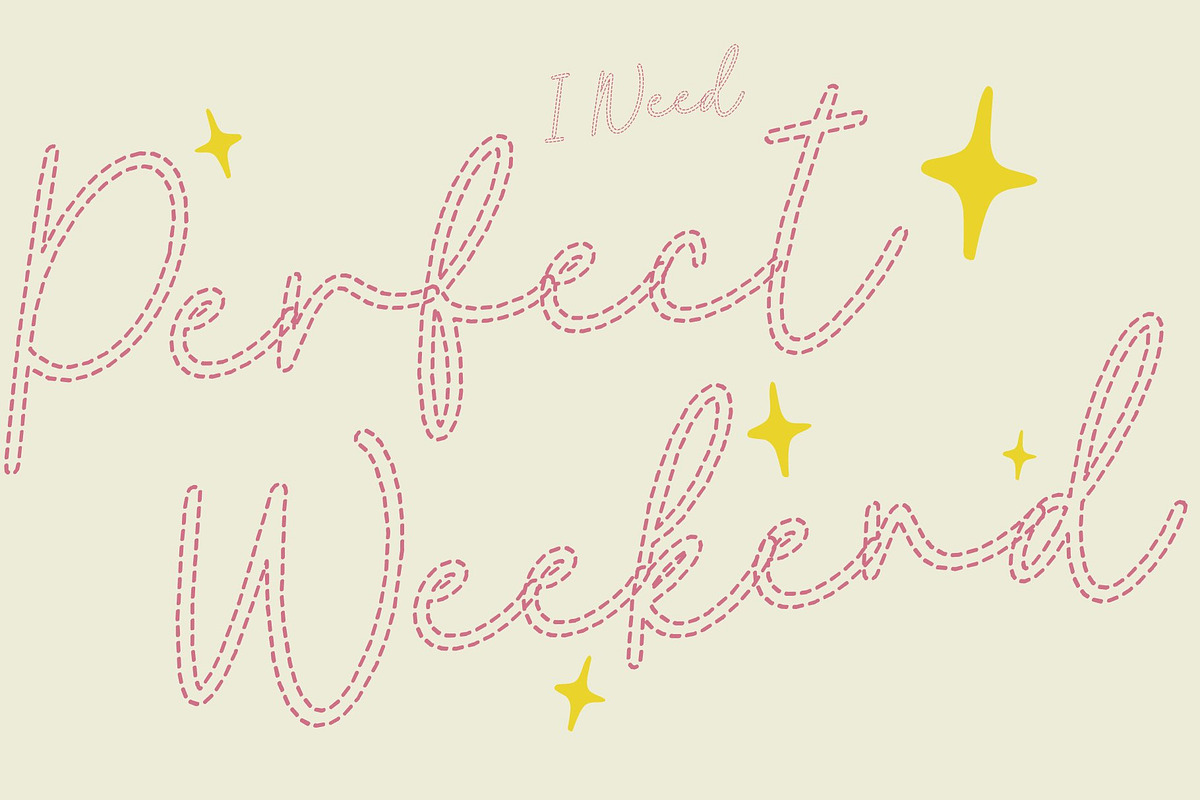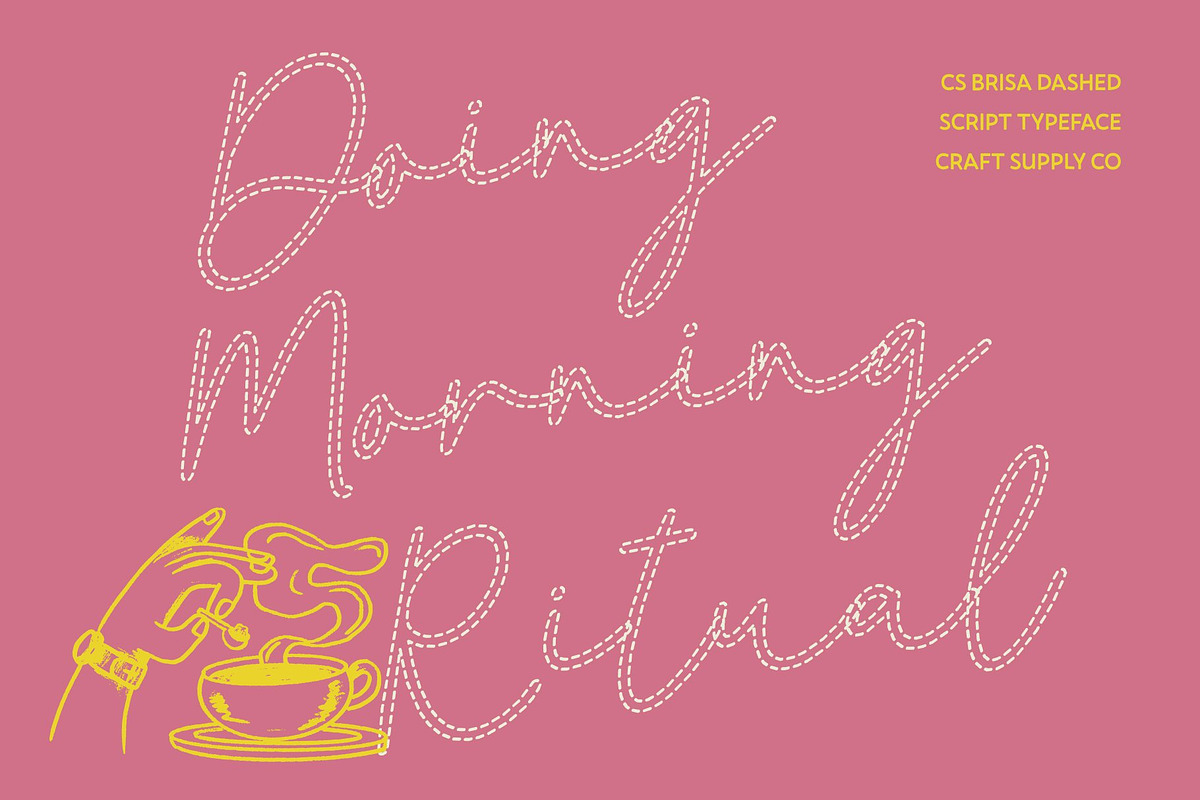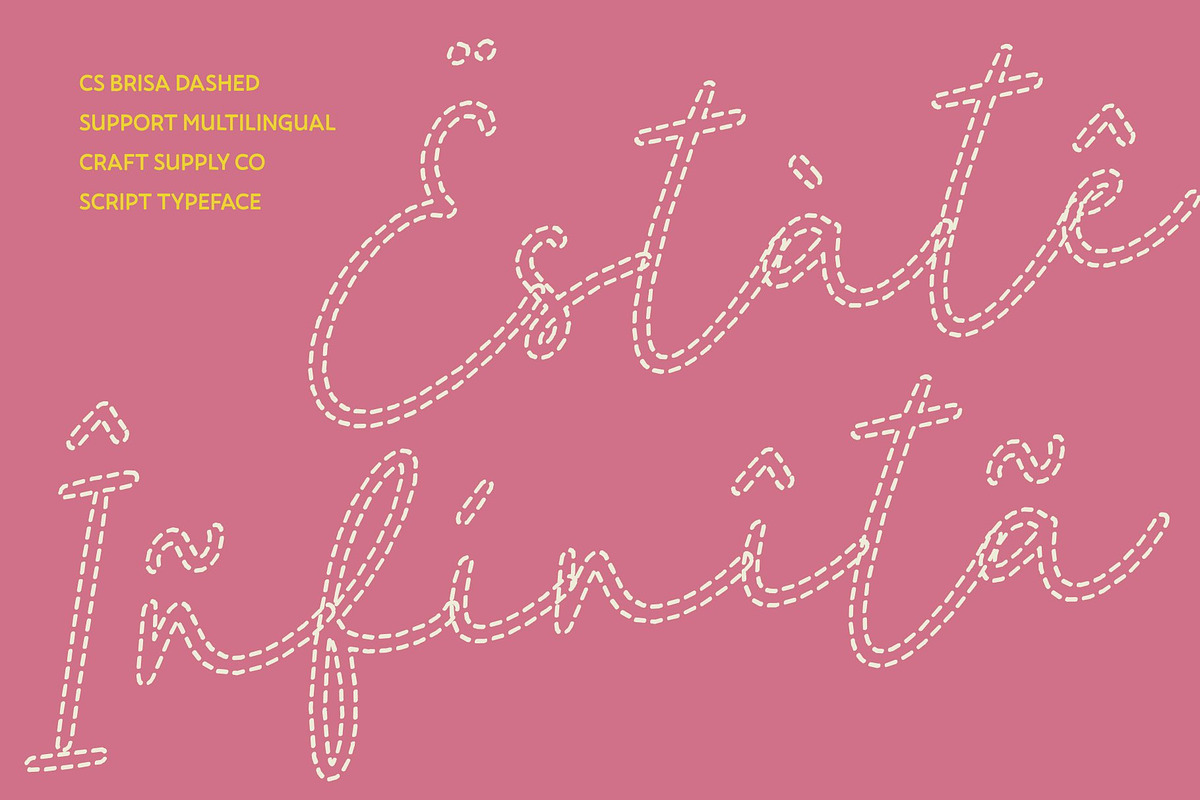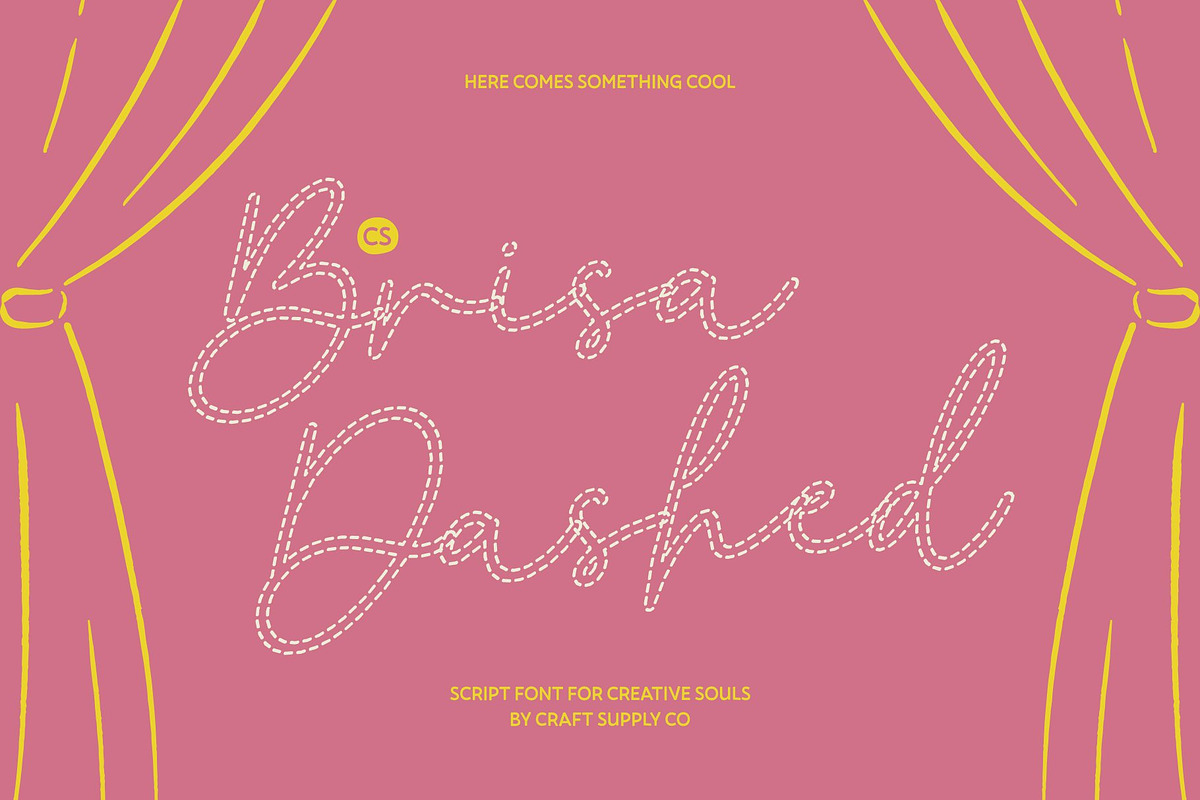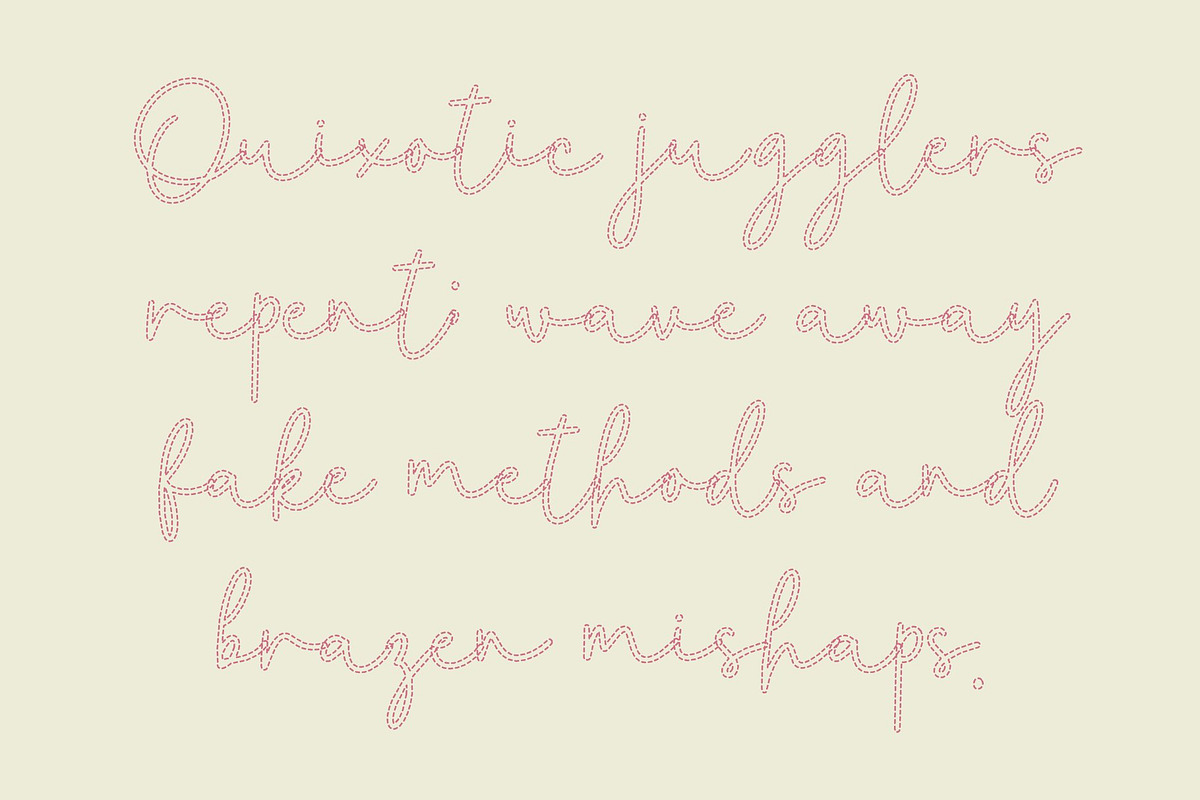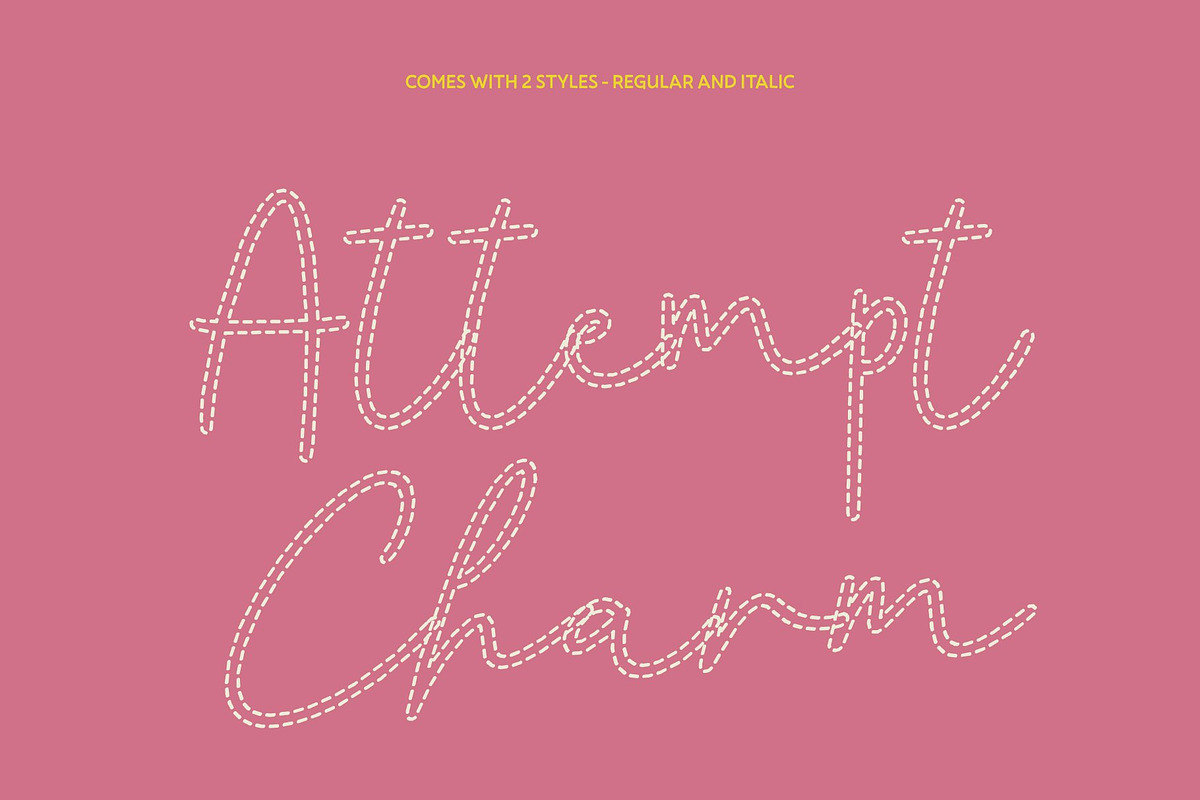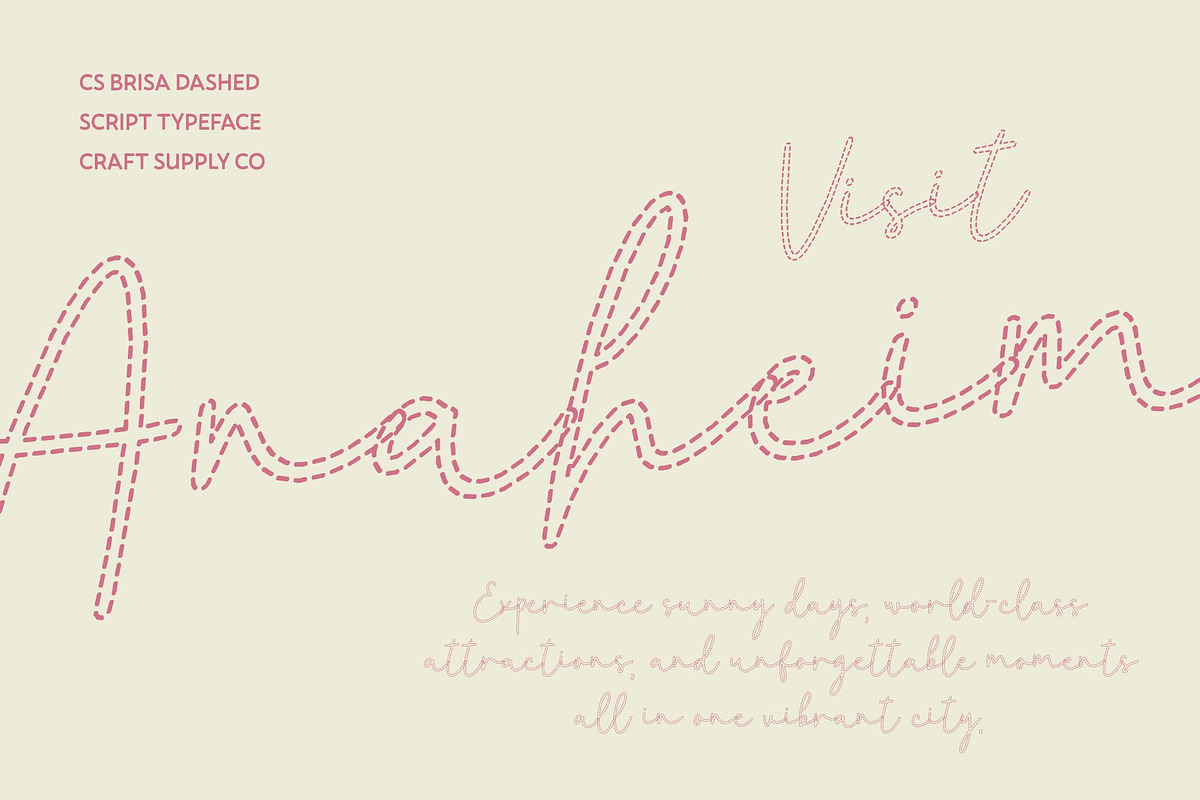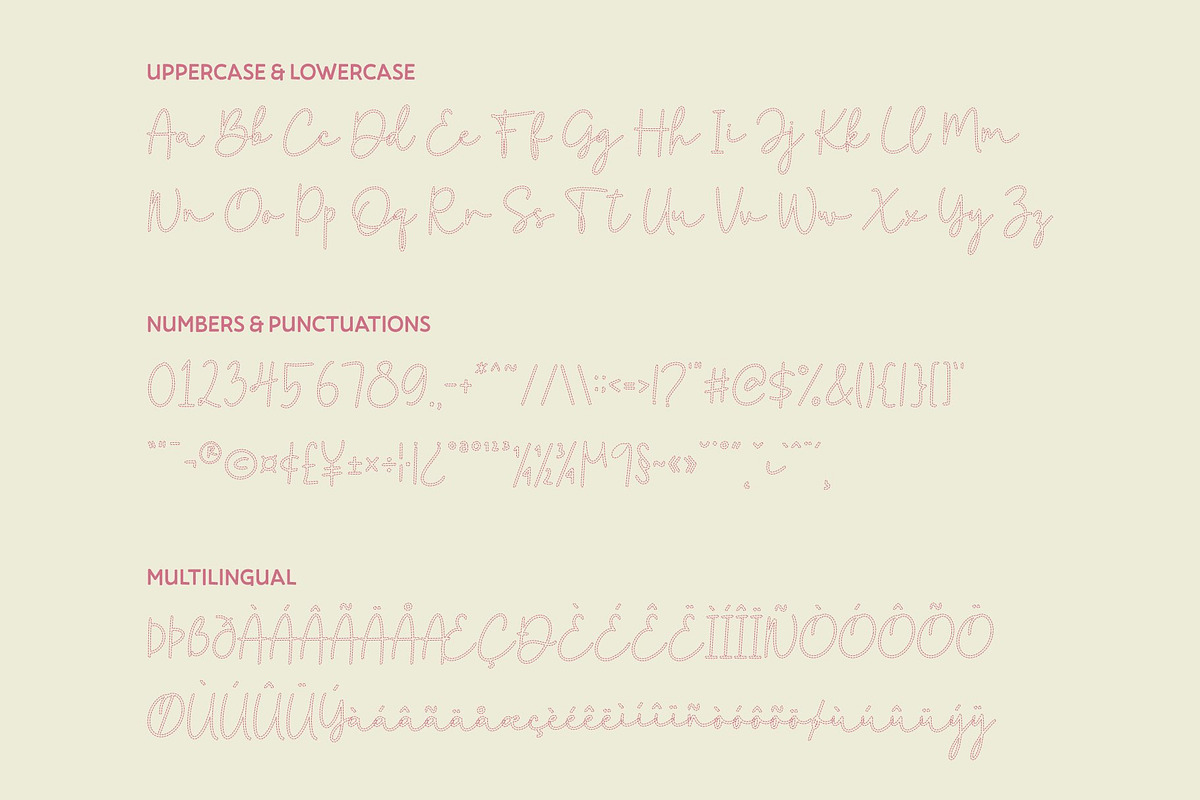
CS Brisa Dashed
CS Brisa Dashed – Grace in Motion with Timeless Style
Monoline Script Font with Flowing Elegance This is an elegant monoline script font featuring smooth, flowing dashed strokes that create a sense of graceful motion. Each letter connects seamlessly to the next, forming a harmonious visual rhythm that radiates sophistication and timeless charm. Its dashed structure adds a subtle creative texture, giving designs a modern, handcrafted feel while maintaining polished elegance.
Graceful Curves for Refined Expression Every stroke in this font is crafted for balance and beauty. The gentle curves and even monoline weight convey calm, confidence, and refined style. Its flowing dashed lines enhance readability while giving text a soft, airy aesthetic ideal for headlines, titles, or delicate accents in high-end designs.
Stylish Rhythm for Modern Sophistication The rhythmic motion of this font combines classic handwriting inspiration with contemporary precision. The playful dashed continuity adds visual interest and personality, creating movement without sacrificing clarity. Perfect for luxury branding, fashion editorials, or elegant event materials, CS Brisa Dashed elevates text with subtle sophistication.
Perfect for Romantic and Luxury Designs This is ideal for wedding invitations, boutique branding, editorial layouts, and premium packaging. Its blend of flowing elegance, modern dashed texture, and stylish simplicity makes it a versatile choice for creative professionals seeking to add a personal yet refined touch. Every word feels graceful, confident, and beautifully composed.
CS Brisa Dashed Regular
CS Brisa Dashed Italic